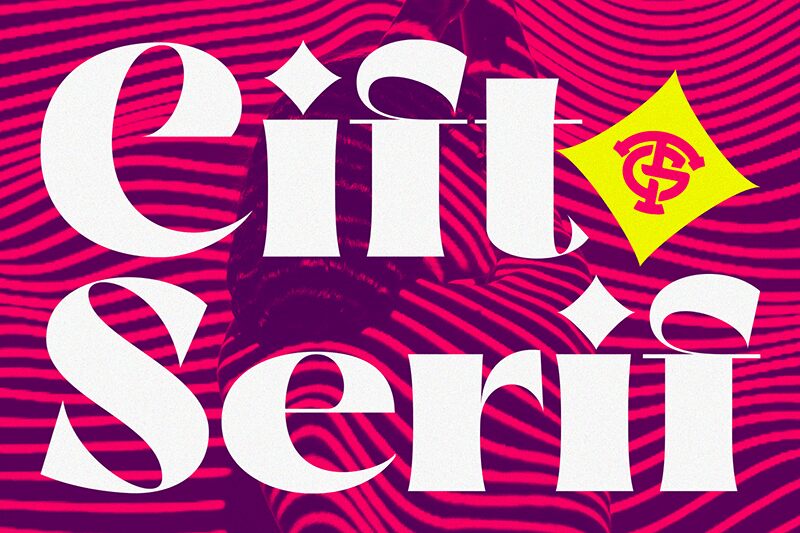
Cift Bold font by Graptail Type Studio is an elegant and stylish bold font with beautiful details and unique curves. This modern yet sophisticated serif is both distinctive and minimal, with a luxury charm that can instantly elevate your designs. Imagine it working perfectly in headlines, texts, or any decorative projects you have in mind.
Take advantage of this free bold serif font in your sports magazine covers, typography art posters, logo and branding designs. Labels, body text in books magazines and newspapers will also benefit from its appealing charm as well as both web and mobile application UI designs titles.